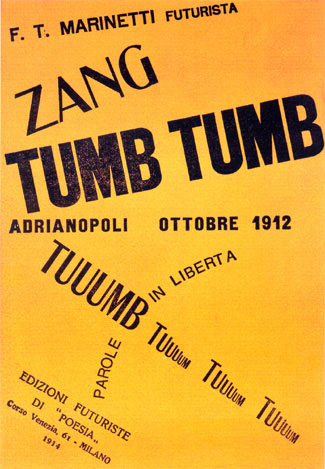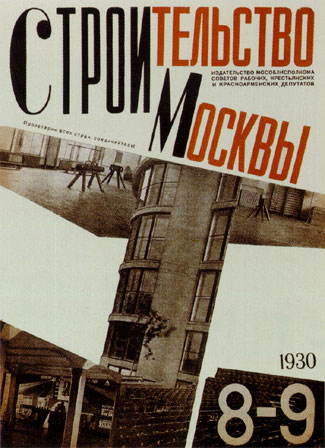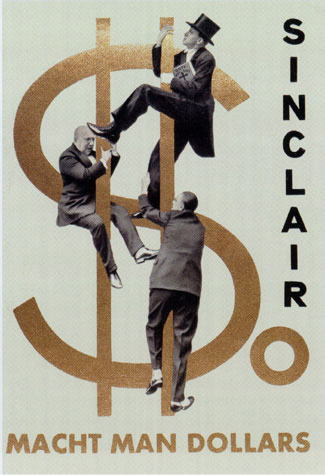
A new book looks at how artists and designers questioned the nature of the printed page in the first half of the 20th century, and what this means for designers today.
What is a page? In particular, what is a page as a design unit, a frame for art and information, a medium of communication? This is a question that cutting-edge writers and artists were beginning to ask at the end of the 19th century (beginning, perhaps, with Stéphane Mallarmé's arrangements of his poems on the printed page) and that is being asked again as we move into a digital world where much of our communication is done on the flickering surface of a computer screen.
In the course of the 20th century, the printed page has been expanded, shrunk, turned around, uprooted, deconstructed, and rebuilt along radically different lines, by dozens of book artists and graphic-design pioneers, working in a plethora of schools and movements and individual situations. Jaroslav Andel's recently published book "Avant-Garde Page Design 1900–1950" (New York: Delano Greenidge Editions, 2002) gives an overview of this process during the first half of the century, when tradition was being questioned and Modernism was in flower. Many of the images reproduced in this large book will look familiar, from other books and articles on modern design, but here they're brought together in a compendium laced with a coherent text (in three languages). The well-printed illustrations can new provide inspiration for graphic designers, as well as making us aware of just how much experimental work has already been done.
Artists and Movements on the Page
The chapter titles give some indication of how the book is organized. Beginning with "Precursors and Pioneers" (such as Mallarmé), it proceeds thematically rather than chronologically, with chapters on topics such as "Architecture on the Page," "The Photomechanical Page," and "The Cinematic Page." Themes overlap -- architecturally inspired pages often include photographs, for instance -- but the groupings make sense, and they give us a structure for dealing with such a mass of graphic material.
Some chapters focus on specific movements, such as Dada or the Futurists, because they came early (before and during the First World War) and because they had such a huge effect on others. The very last chapter deals with the page as pure art, in "artist's books," with the work of Henri Matisse and Marcel Duchamp.
There's a vast variety here. The intentionally disruptive, chaotic pages of scrambled words by the Futurist founder Marinetti contrast with the starkly practical New Typography of Jan Tschichold. Some of the most beautiful and dramatic pages are the work of the Russian Constructivists, with their industrial exhortations in black, white, and red. It helps to be able to read Cyrillic type to appreciate them fully. Indeed, only a reading ability in several languages would make this book completely appreciable, since the examples are taken from a variety of European countries and the words on the pages may be in English, Czech, German, Spanish, Russian, French, or Italian. The captions translate any titles there may be, which is helpful, but they don't attempt to translate the full text of what's shown in each illustration. (For example, on page 201 one of the illustrations is captioned "Title page of 'Flugblätter mit dem Buntquadrat' [Leaflets with the Motley Square], no. 1, 1924," but you have to read German to understand that the text is about what makes good design in advertising. A provocative opening sentence like "Advertising is the handwriting of entrepreneurs!" makes me wish my German were better.)
New Media, Then and Now
The use of photography in print, on the same page as lettering or type, was new and exciting in the early 20th century. It's not unusual today, but it's still very effective, because of the contrast between the texture of type and the visual nature of photographs. This kind of contrast is even carried over into video animation, where the collage of moving words and pictures still relies at least partly on the fundamental contrast between the two forms of visual communication.
Andel's introduction ties these developments together in the context of our current moment, here in the early 21st century:
"The introduction of the printed page and the painted picture to the computer screen is the latest in a series of countless artistic and technological developments that advanced the ways in which pictures and texts are interconnected, produced, transmitted, and received. Originating in crossovers between the fields of art, science, and technology, these inventions were often deeply intertwined. Going back to the nineteenth century, and continuing through the twentieth, photography, the telegraph, the telephone, motion pictures, television, the fax, the computer, and the internet have depended on contributions made by artists, architects, film directors, and designers."
Pages on Pages
Since the subject of this book is the printed page, it's interesting to see how the book designer (Enzo Cornacchione) deals with the pages of this book itself. The trilingual text runs in three blocks across the pages, in the same sans-serif typeface but in three different weights -- English on top (light), French in the middle (medium), German on the bottom (bold). But not all the text pages carry all three languages. Sometimes only one, or two, of the languages is displayed on a particular page, with the other third or two-thirds of the space taken up with illustrations. The effect is to intersperse the text throughout the highly illustrated chapters, beginning at the same point and ending at the same point but not necessarily taking the same path to get there. This technique also disguises the inevitable problem that the same text will run longer or shorter in some languages than in others. (Since English tends to be the shortest, the typographer could have improved the readability of the English text, and at the same time made it slightly longer, by loosening up the rather tight letter spacing of the lightest weight of type.)
One final quibble: the index only lists the names of people, not of organizations or schools or publications. If you want to find references to the German radical magazine A.I.Z., for instance, you have to know that it was designed by John Heartfield, and go look up his name in the index. An index of proper names is never enough.